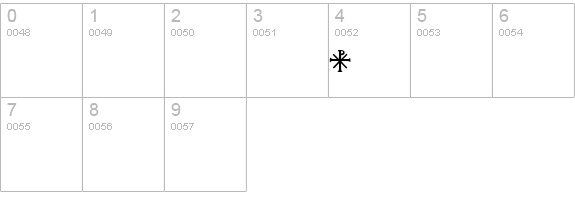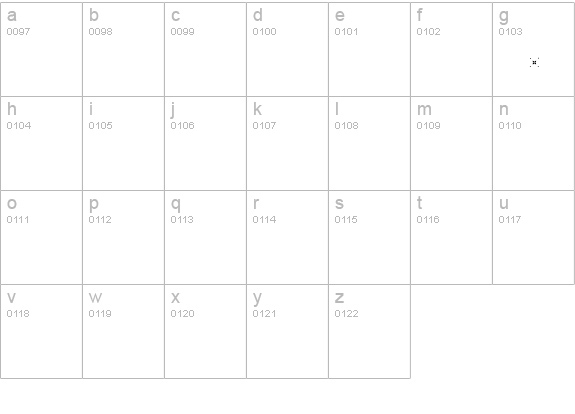
PFOrnmTreasures2-Layer8 font is a stunning display typeface that exudes elegance and sophistication. This font features intricate ornamental designs that add a touch of luxury to any project. With its two-layered structure, this font allows for endless creative possibilities, making it perfect for titles, headlines, and special occasions. Best of all, PFOrnmTreasures2-Layer8 font is available for free download at FontsMarket.com. This means you can easily access this beautiful font and enhance your designs without any cost. Add a touch of class and refinement to your projects with PFOrnmTreasures2-Layer8 font today!